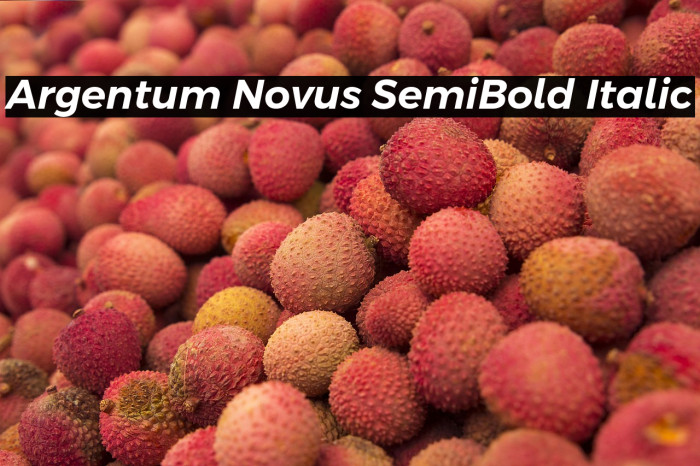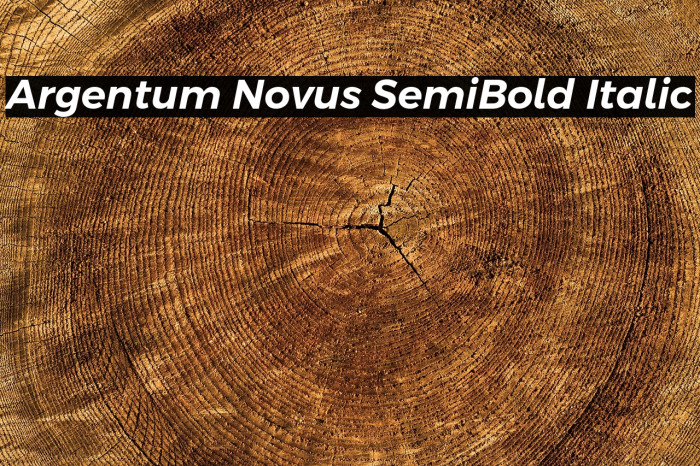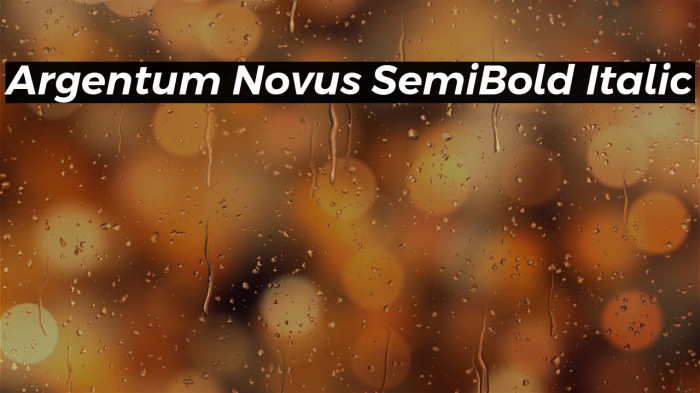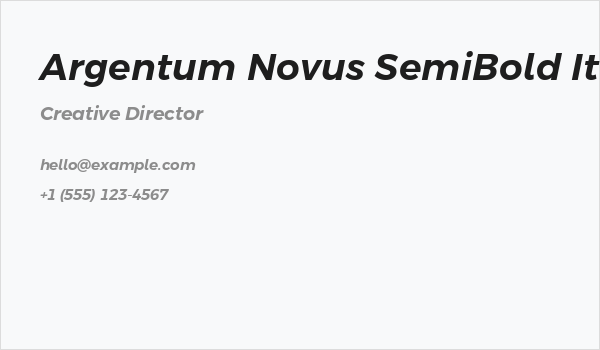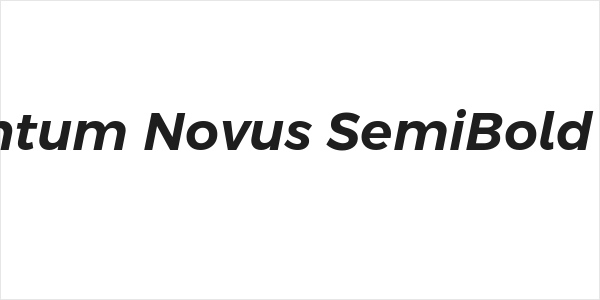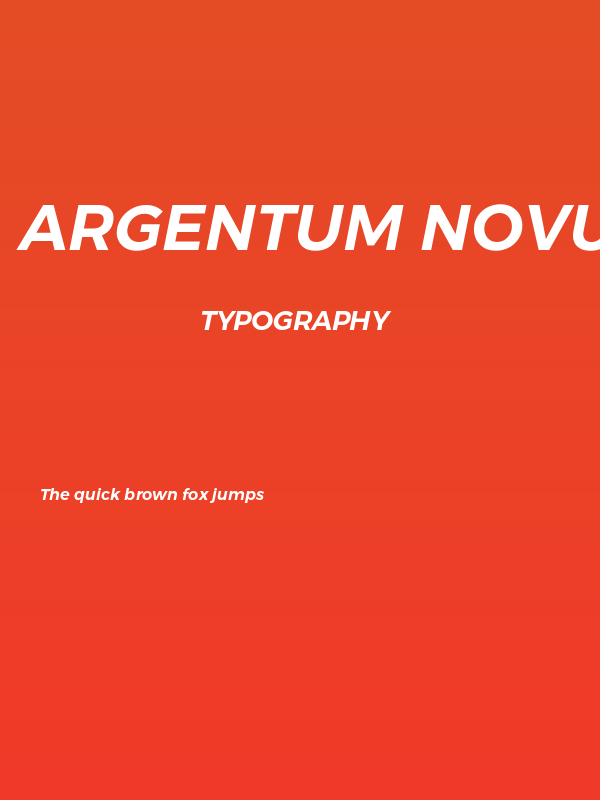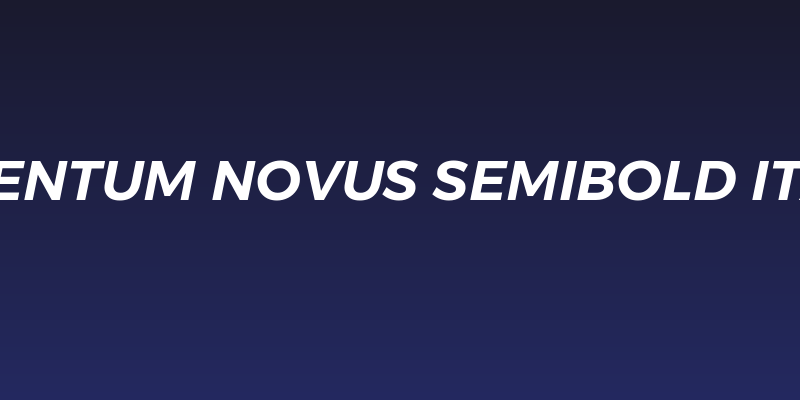
Argentum Novus SemiBold Italic Font
Argentum Novus SemiBold Italic Description
This font features a modern and sleek design with a semi-bold weight and italic style. The characters are slightly slanted, giving a dynamic and forward-moving appearance. The strokes are consistent and smooth, with a medium contrast between thick and thin lines. The overall look is clean and professional, making it suitable for contemporary design projects. The uppercase letters are bold and assertive, while the lowercase letters maintain a friendly and approachable feel. The numerals are clear and easy to read, and the special characters are well-integrated with the rest of the font.
| Proposed Projects | Ideal for branding, advertising, and editorial design where a modern and dynamic look is desired. |